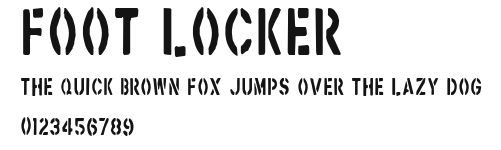
Foot Locker.ttf is a modern, elegant sans-serif font designed for ultimate readability and visual harmony. Perfect for branding, headlines, web design, and print materials.